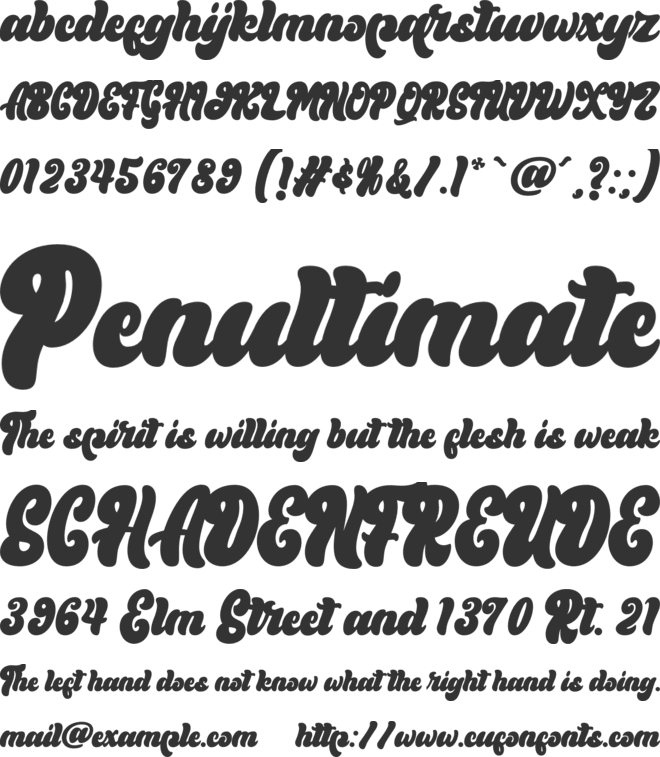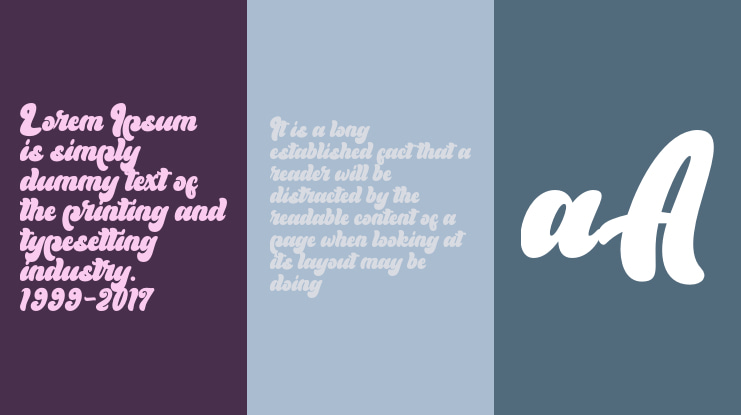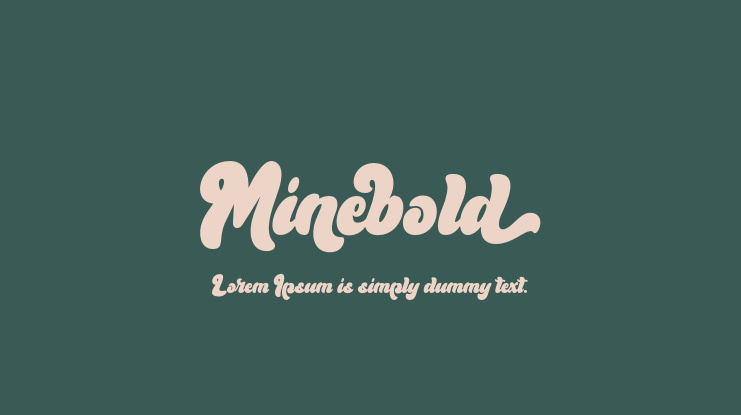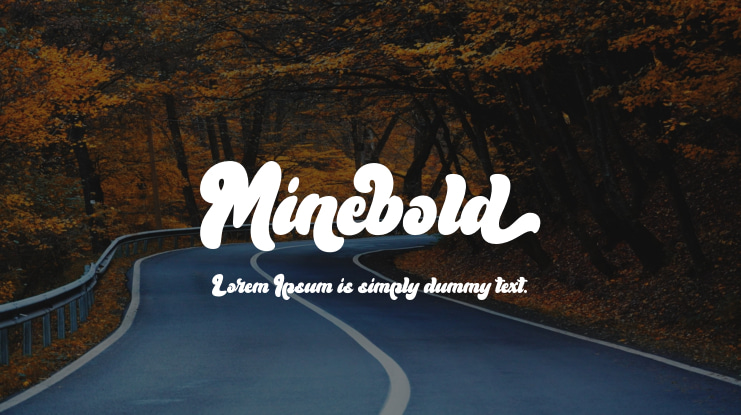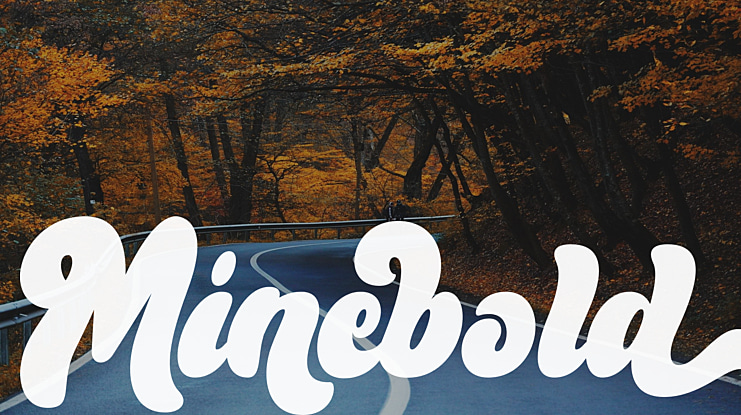
Minebold Font
Minebold is a retro bold handwritten font that will bring you back to the 70s. Fall in love with its unique character and use it to create gorgeous wedding invitations, beautiful stationery art, eye-catching social media posts, and much more!
Minebold is PUA encoded, which means you can access all glyphs and swashes with ease!